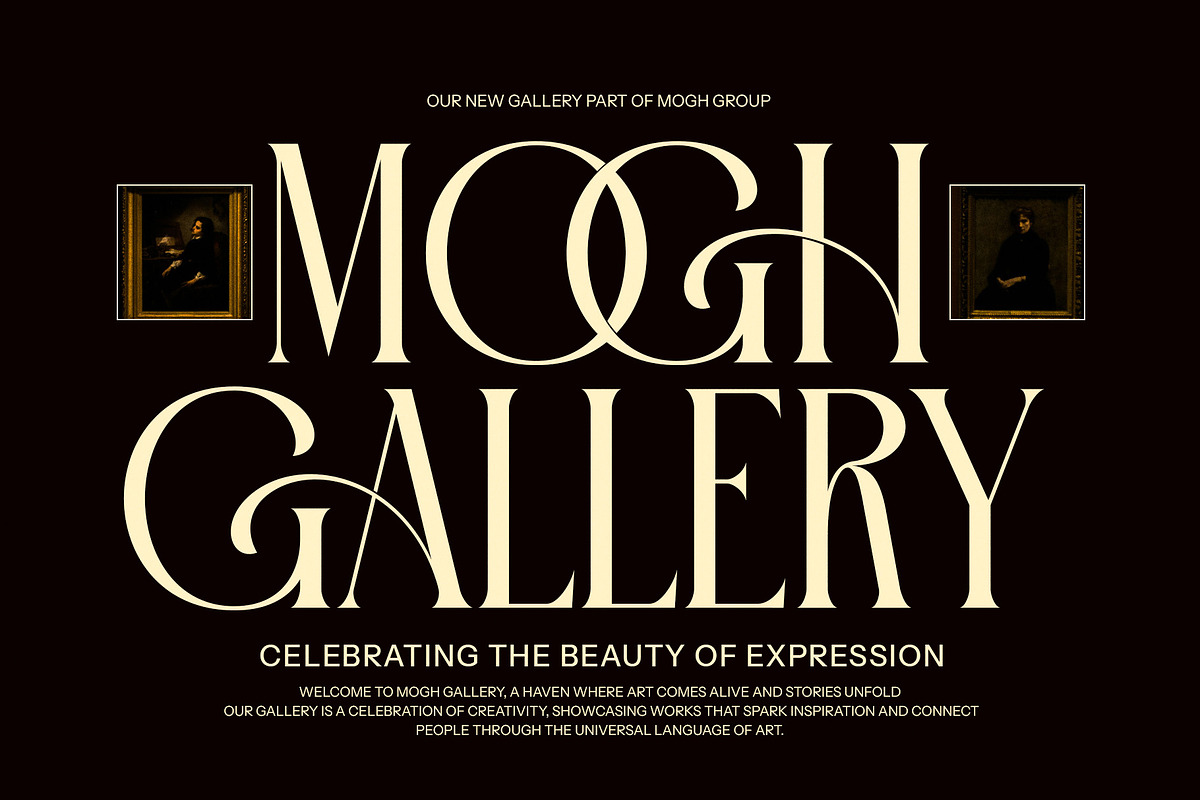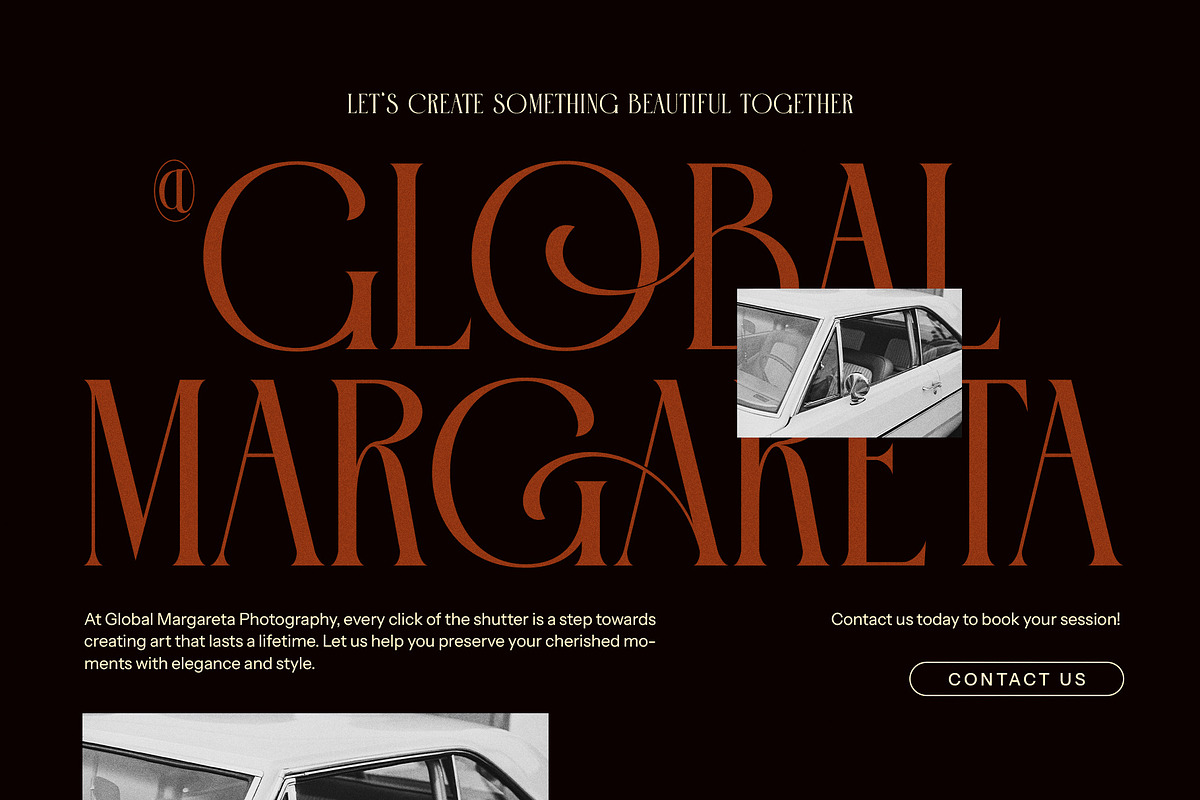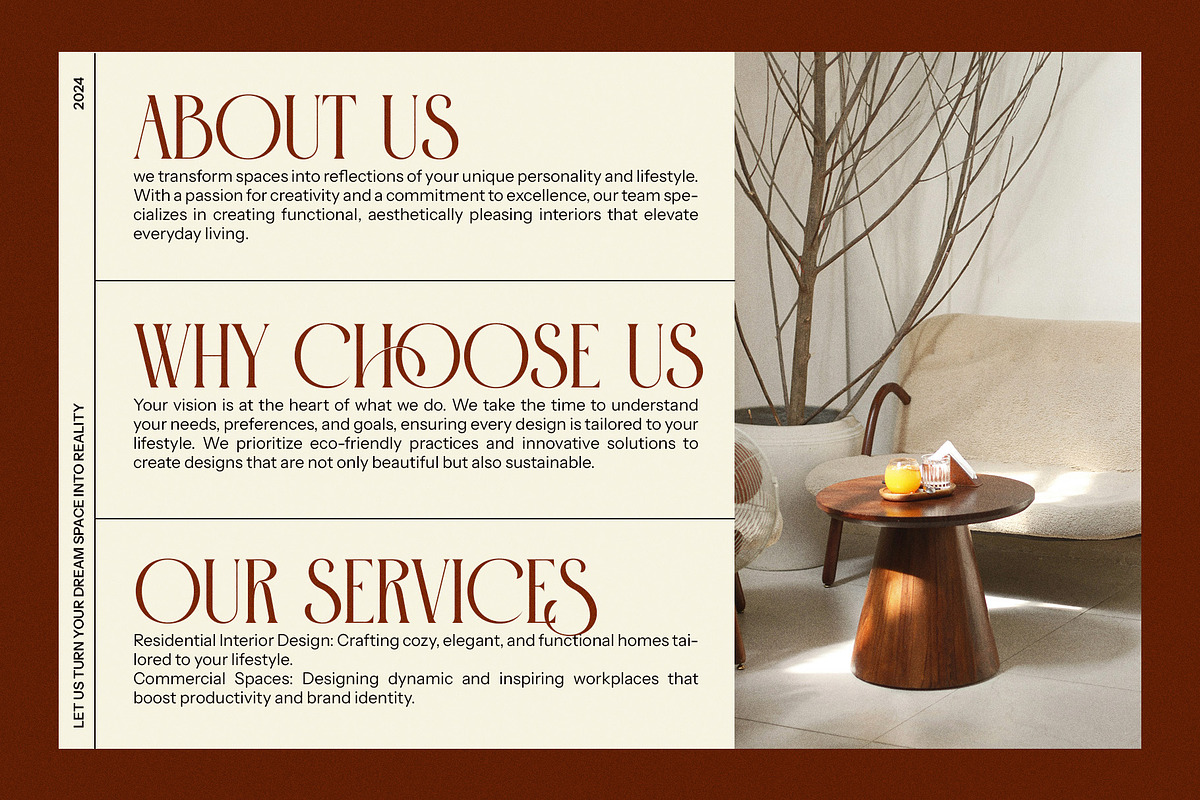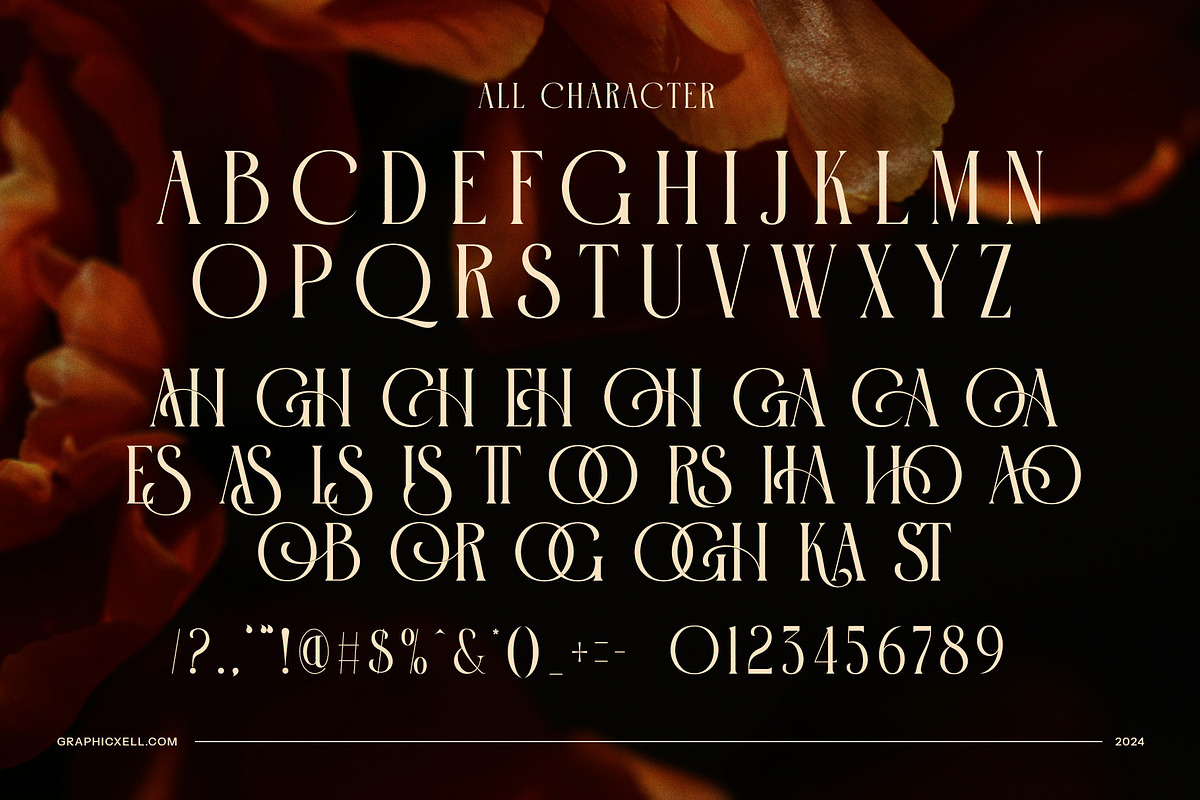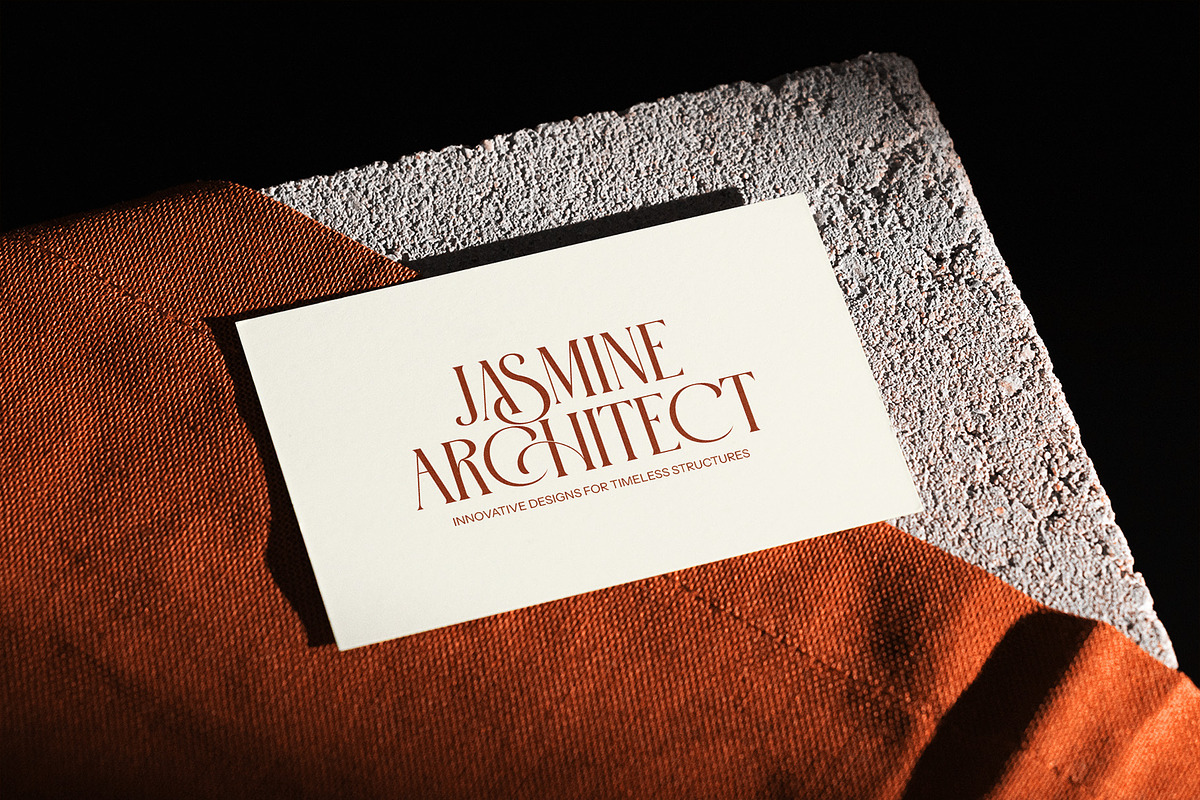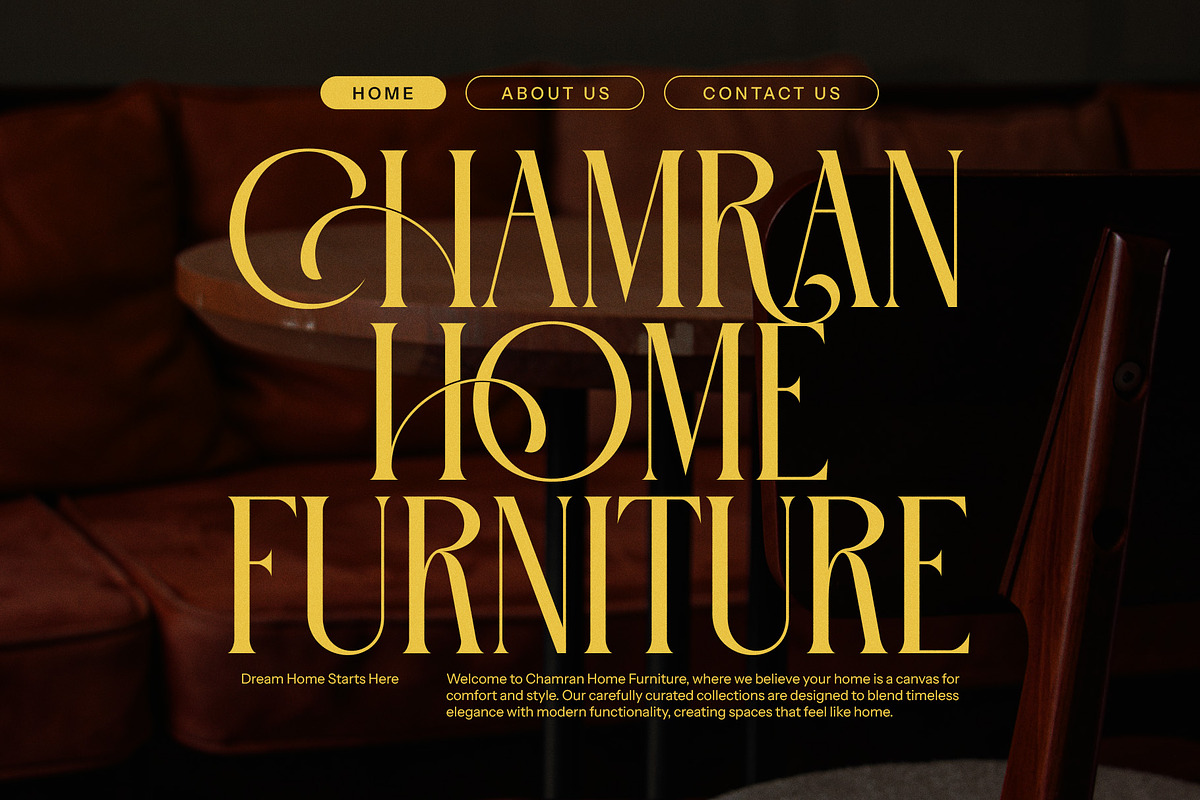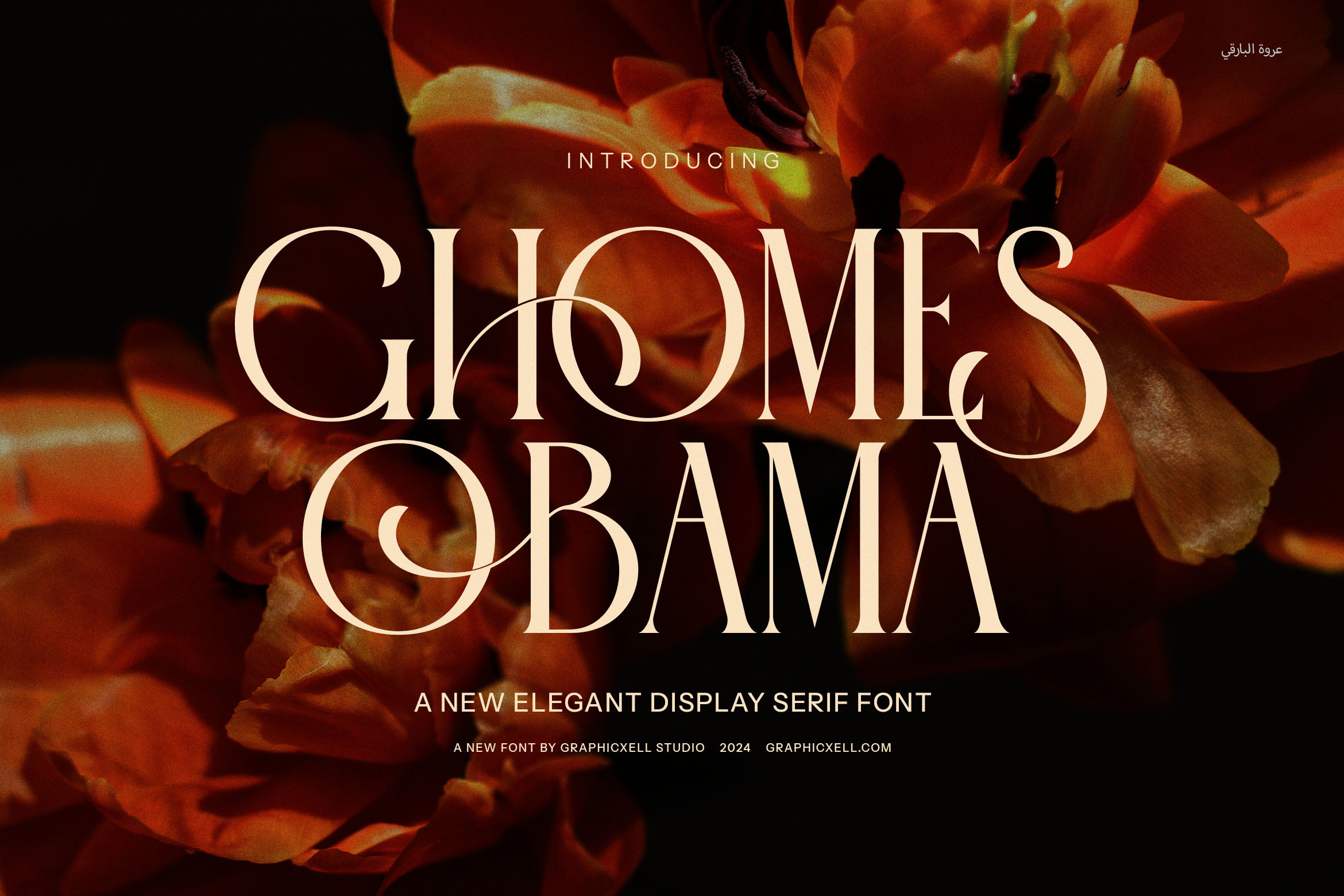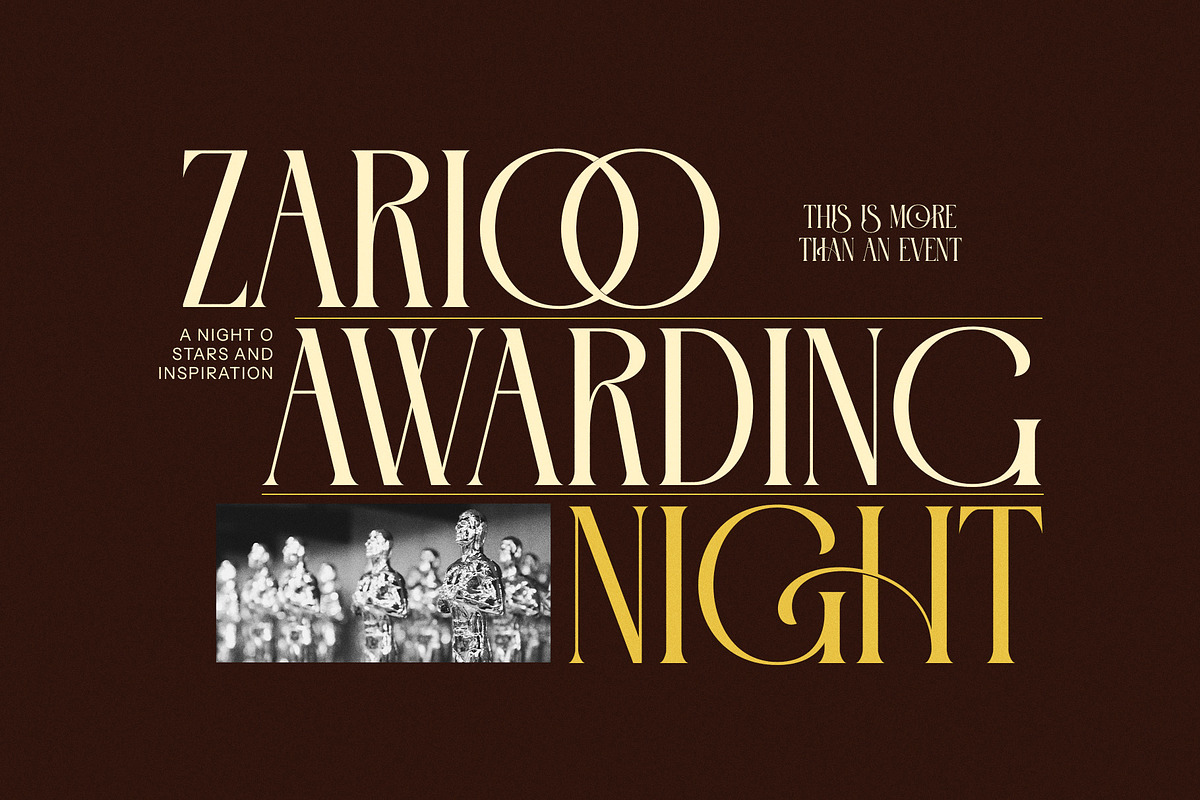
Ghomes Obama Serif Font
Introducing Ghomes Obama Serif Font, a bold and sophisticated serif typeface that redefines modern elegance. With its finely crafted shapes and exquisite attention to detail, this font exudes refinement while offering unparalleled versatility. The unique design elements, including elegant ligatures and alternative calligraphic characters, provide endless opportunities to create designs that stand out and captivate.
Perfect for luxury branding, chic logos, and polished magazine layouts, Ghomes Obama brings a sense of timeless class to every project. Its clean yet artistic structure ensures readability without compromising style, making it an excellent choice for both print and digital mediums. From high-end advertisements to bespoke product packaging, this font adapts effortlessly to diverse creative needs.
Ghomes Obama thrives in creating compelling visual narratives, whether for boutique branding, gourmet food promotions, or sophisticated website designs. Its balance of contemporary flair and classic appeal makes it equally suitable for minimalist compositions and intricate designs. The font’s elegant ligatures and alternate characters enhance its versatility, empowering designers to craft unique and personalized visuals with ease.
Designed to make an impact, Ghomes Obama Serif Font embodies professionalism, creativity, and modern luxury. Elevate your design projects with a typeface that blends beauty and functionality seamlessly. Whether you’re building a brand identity, designing a stylish editorial, or curating an unforgettable advertisement, Ghomes Obama is your key to timeless and striking creations. Let your creativity flourish with this extraordinary serif font.